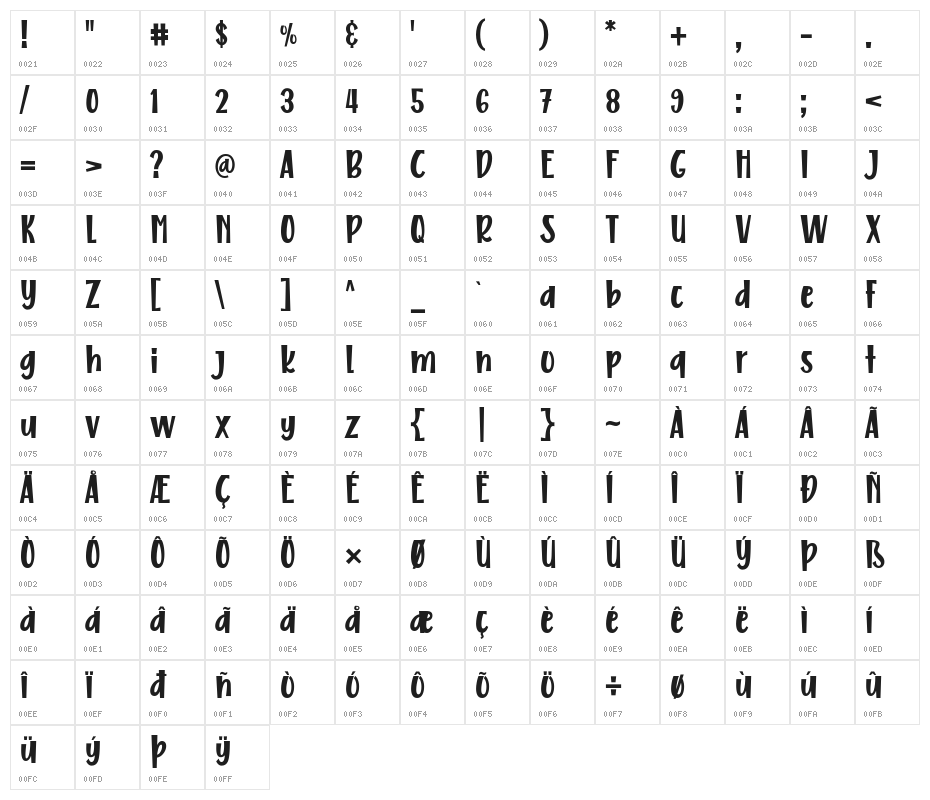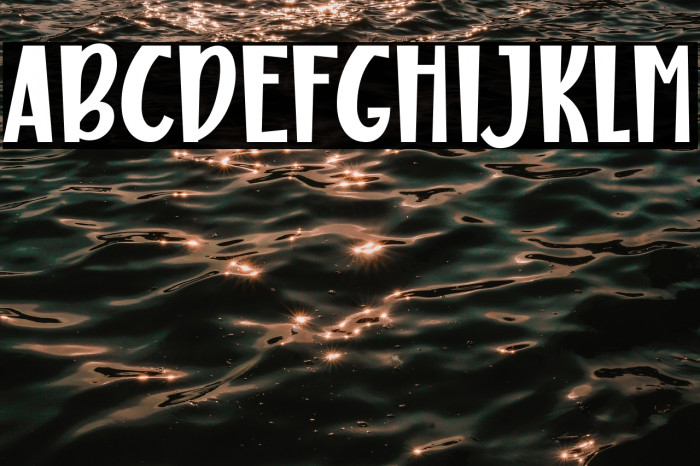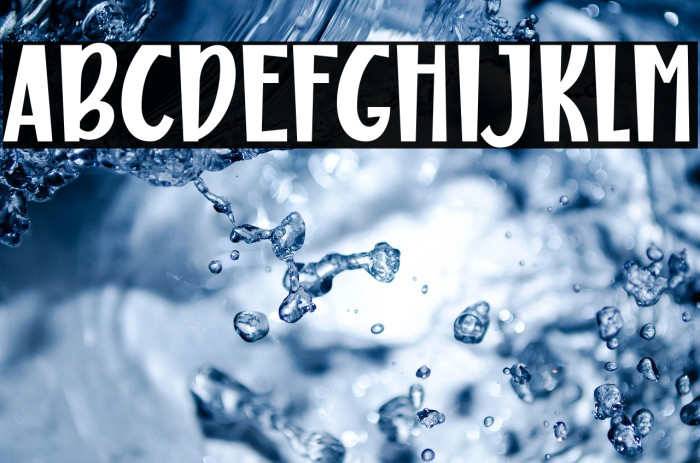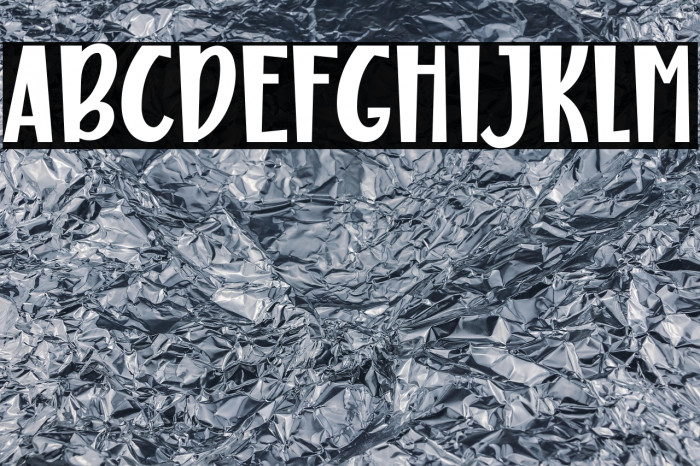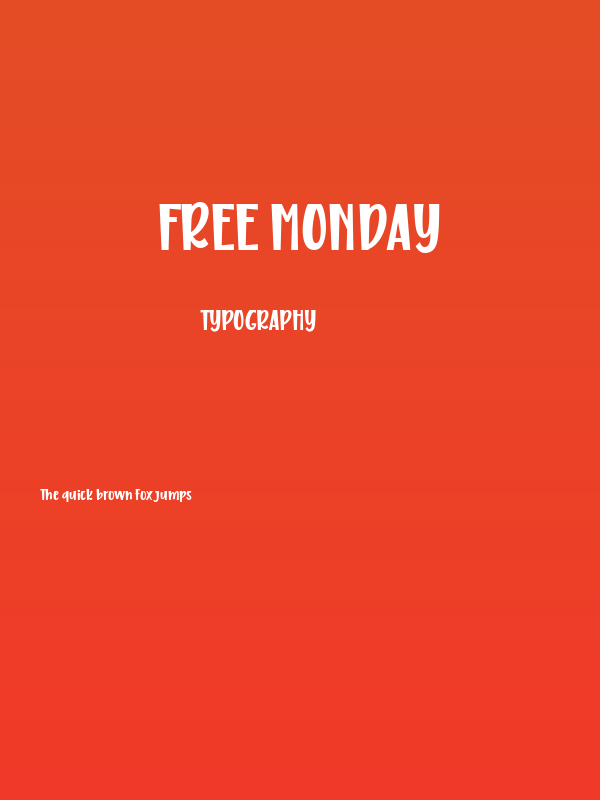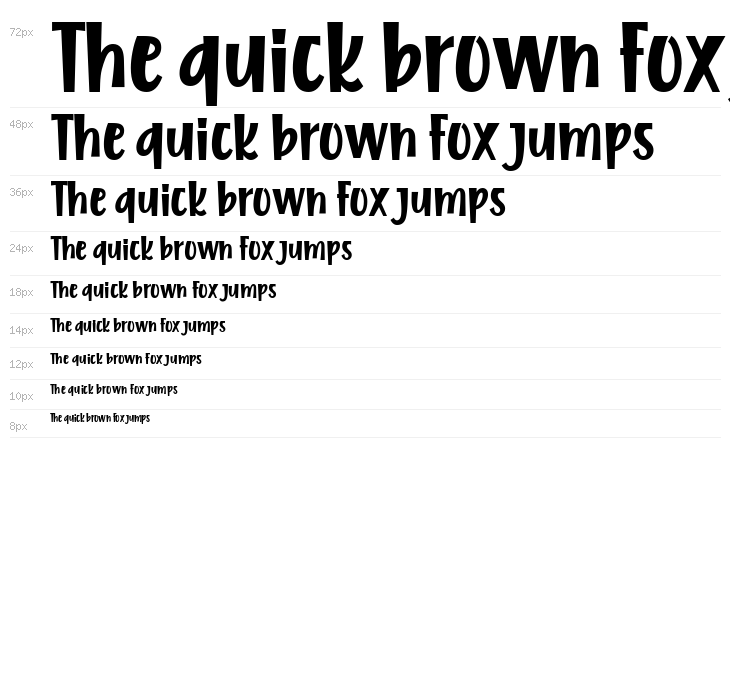
Free Monday Font
Free Monday Description
This font features a playful and bold style, characterized by its thick, rounded strokes and slightly irregular shapes. The uppercase letters are tall and commanding, while the lowercase letters maintain a consistent, friendly appearance. The numbers are bold and clear, making them easily readable. Special characters are designed with the same playful flair, adding a touch of whimsy to any text. The overall design is cohesive, with a hand-drawn feel that adds personality and charm. This font is perfect for projects that require a fun and approachable aesthetic.
| Overall Style | Playful, Hand-drawn |
| Proposed Projects | Ideal for children's books, playful branding, posters, and greeting cards. |